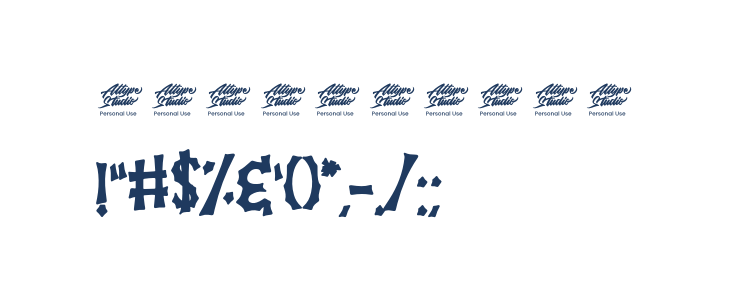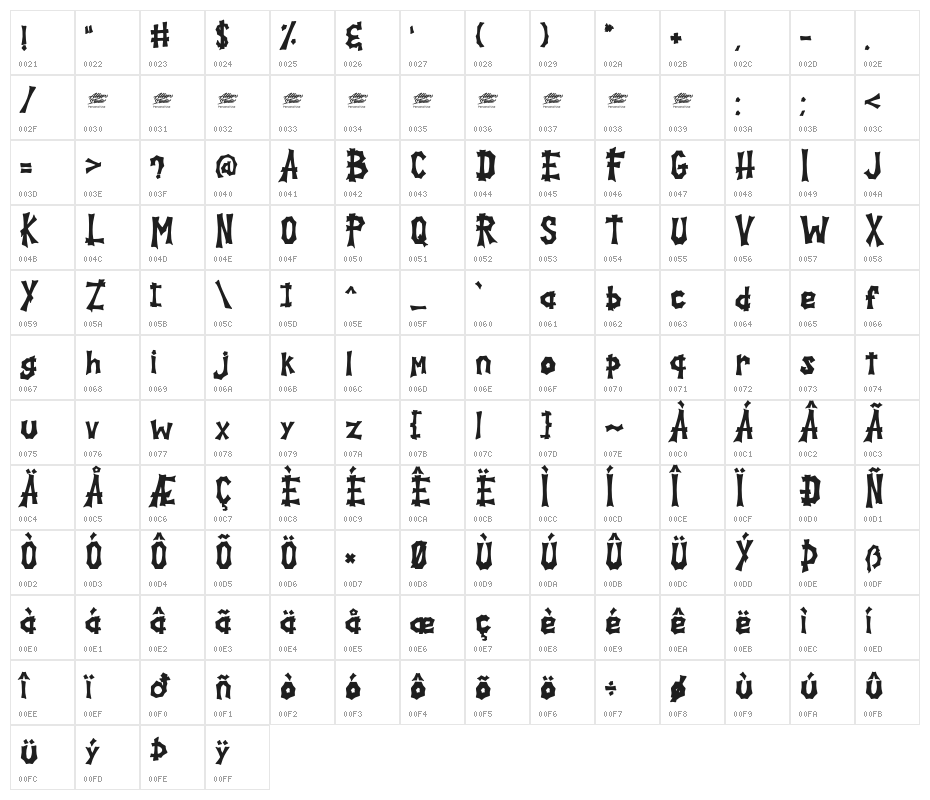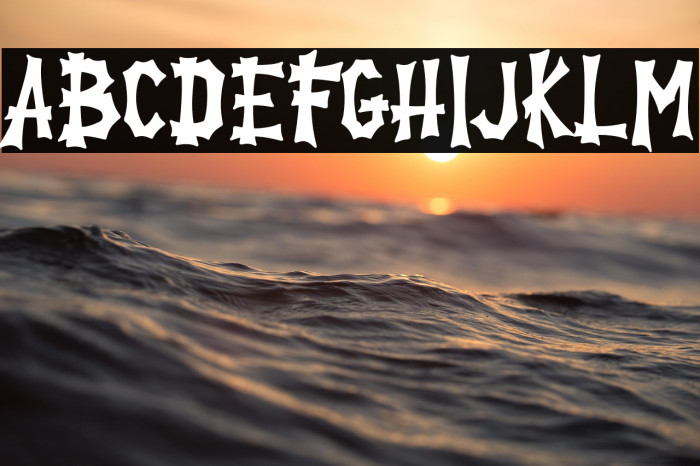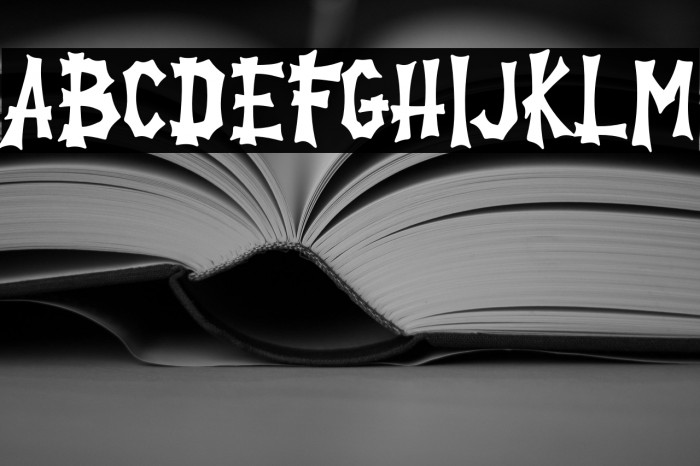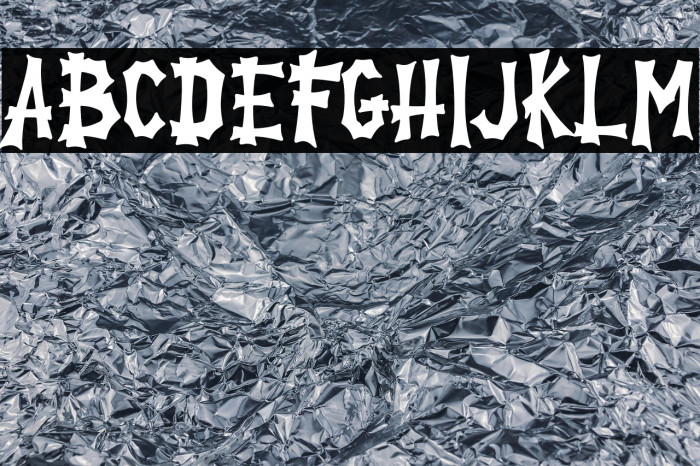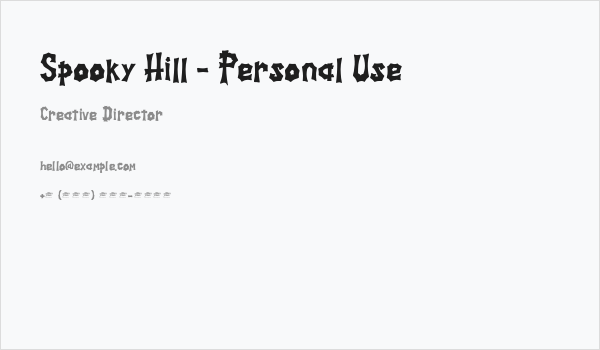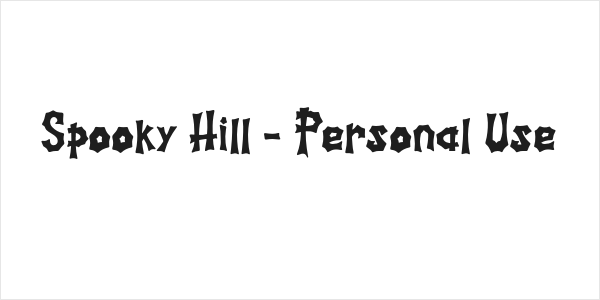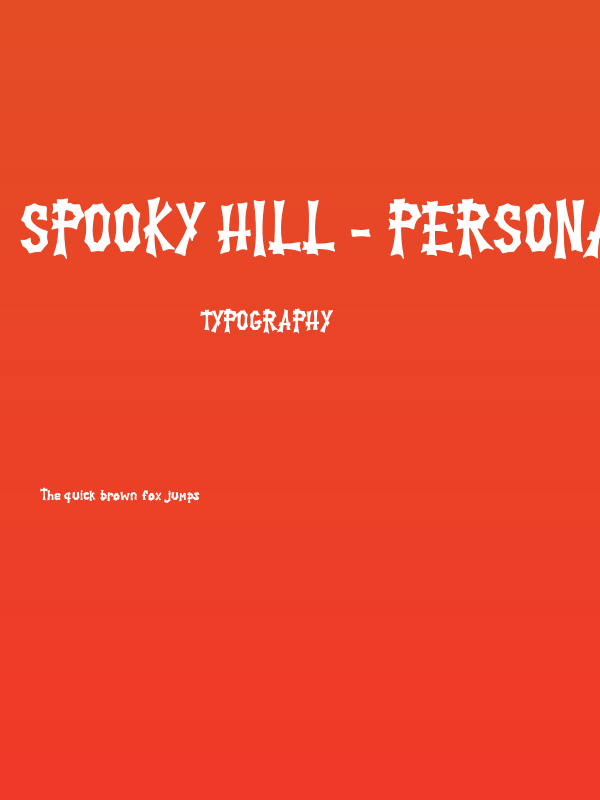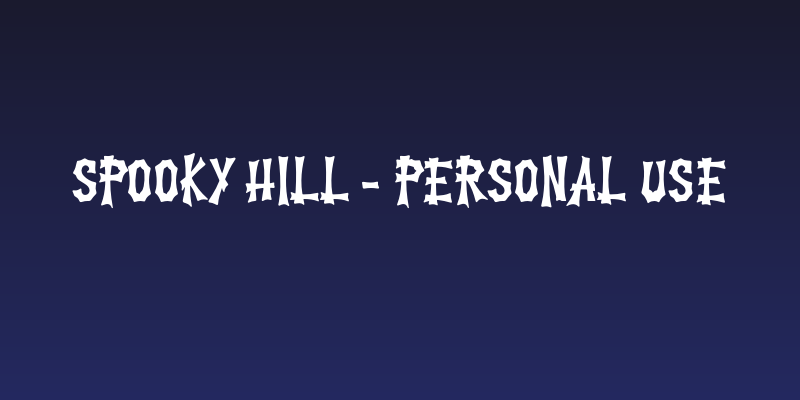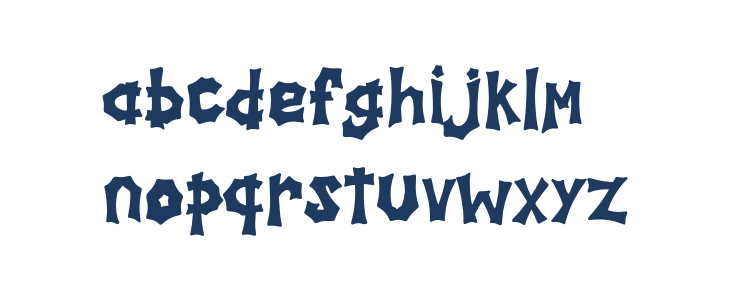
Spooky Hill - Personal Use Font
Spooky Hill - Personal Use Description
This font features a spooky, jagged design that evokes a sense of mystery and Halloween-themed aesthetics. The uppercase and lowercase letters are crafted with uneven edges and sharp angles, giving them a hand-drawn, eerie appearance. The numbers and special characters follow the same style, maintaining the font's cohesive and unsettling look. The overall design is bold and attention-grabbing, making it ideal for projects that require a dramatic and thematic touch. Its unique style is perfect for seasonal events, horror-themed designs, or any creative project that aims to capture a spooky atmosphere.
| Proposed Projects | Ideal for Halloween invitations, horror movie posters, themed event flyers, and spooky merchandise designs. |